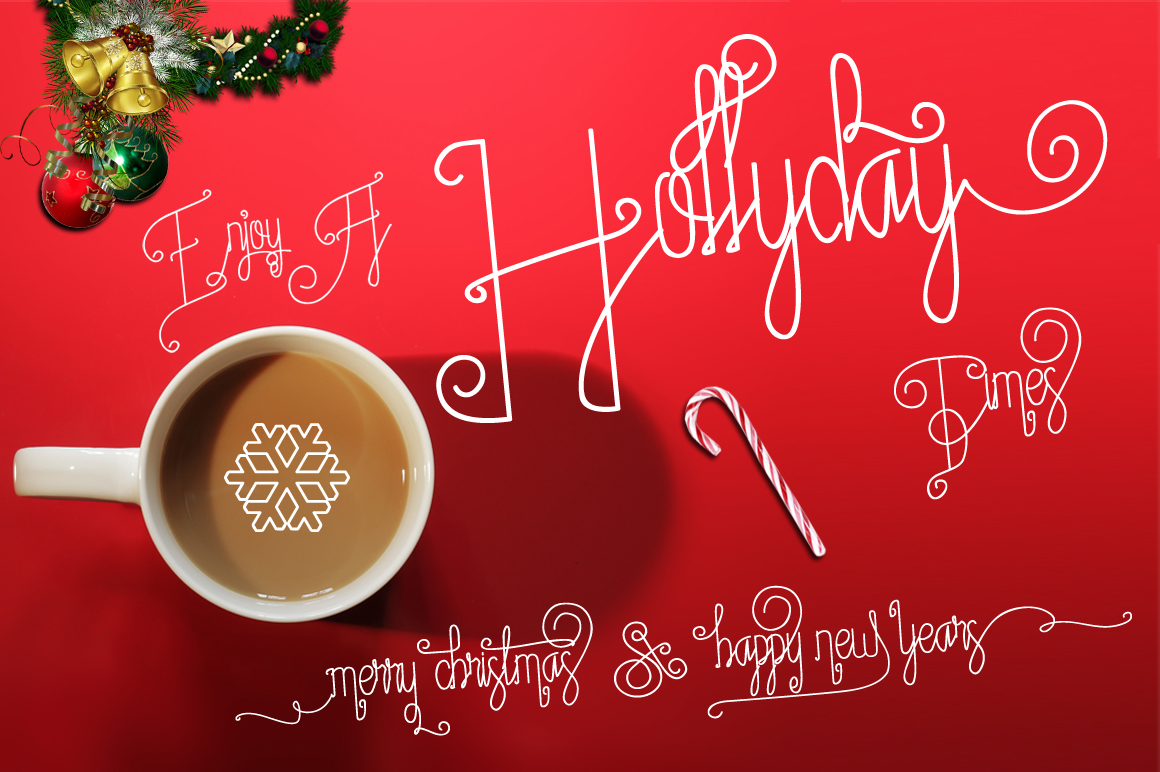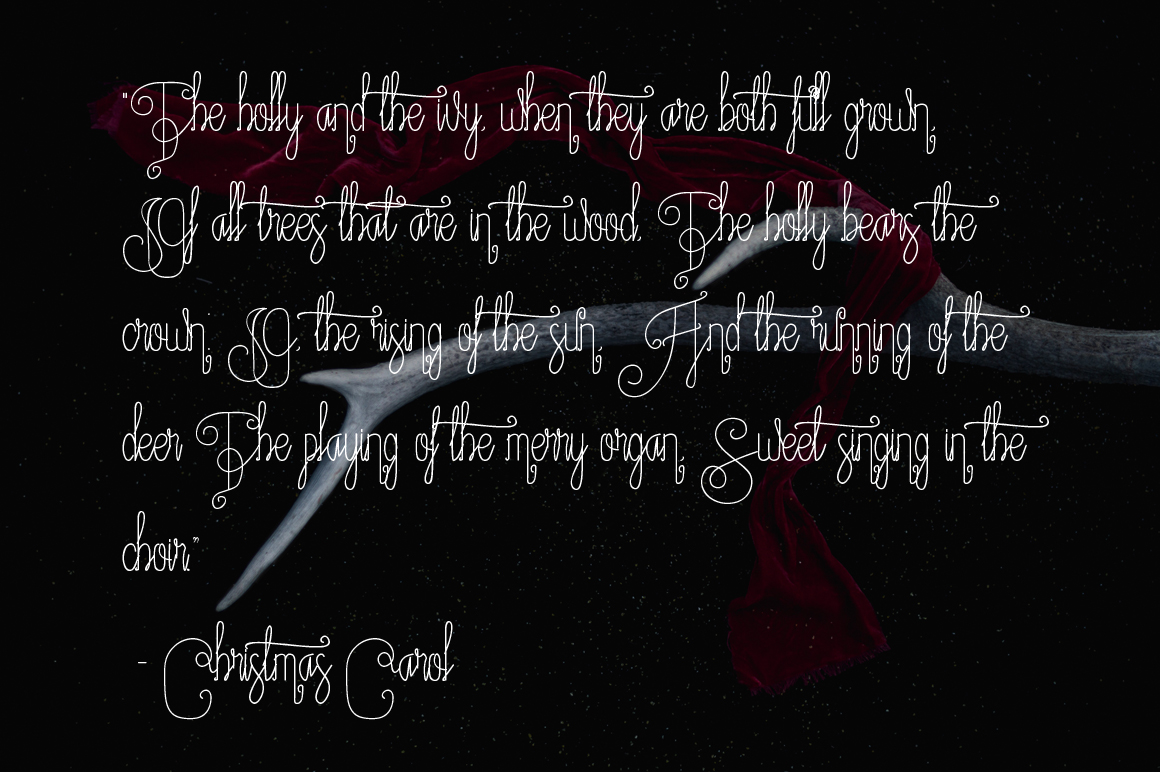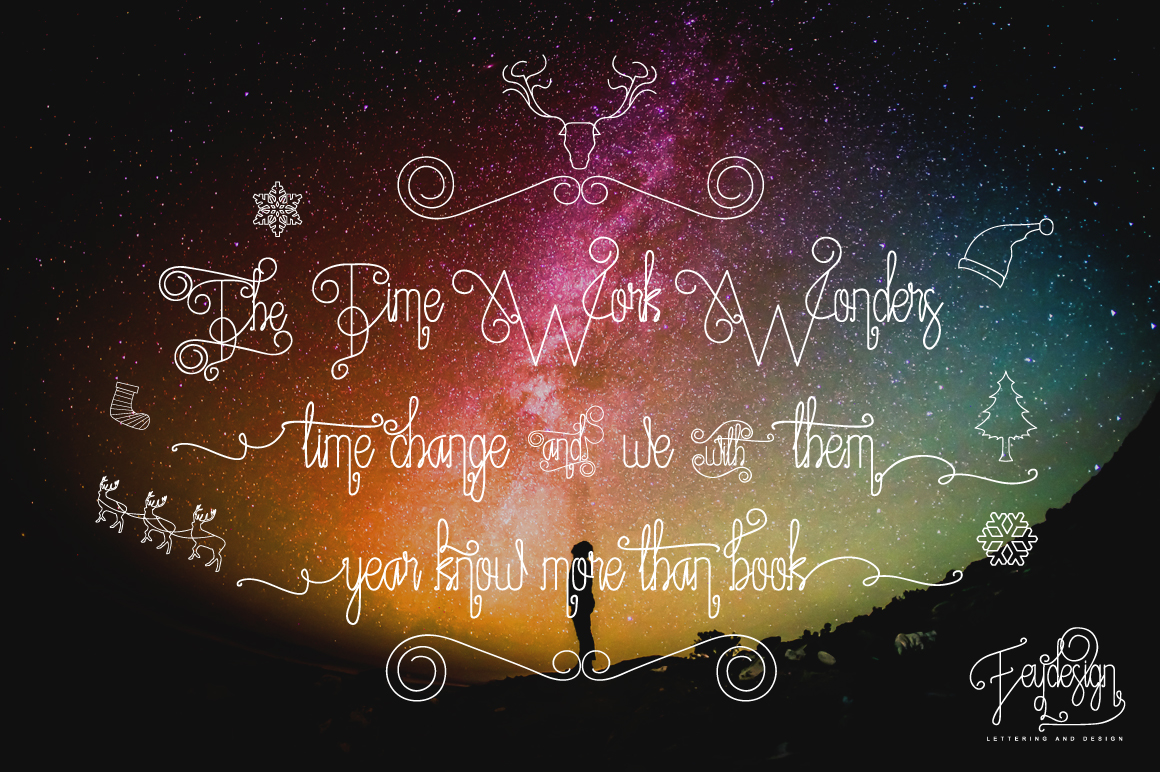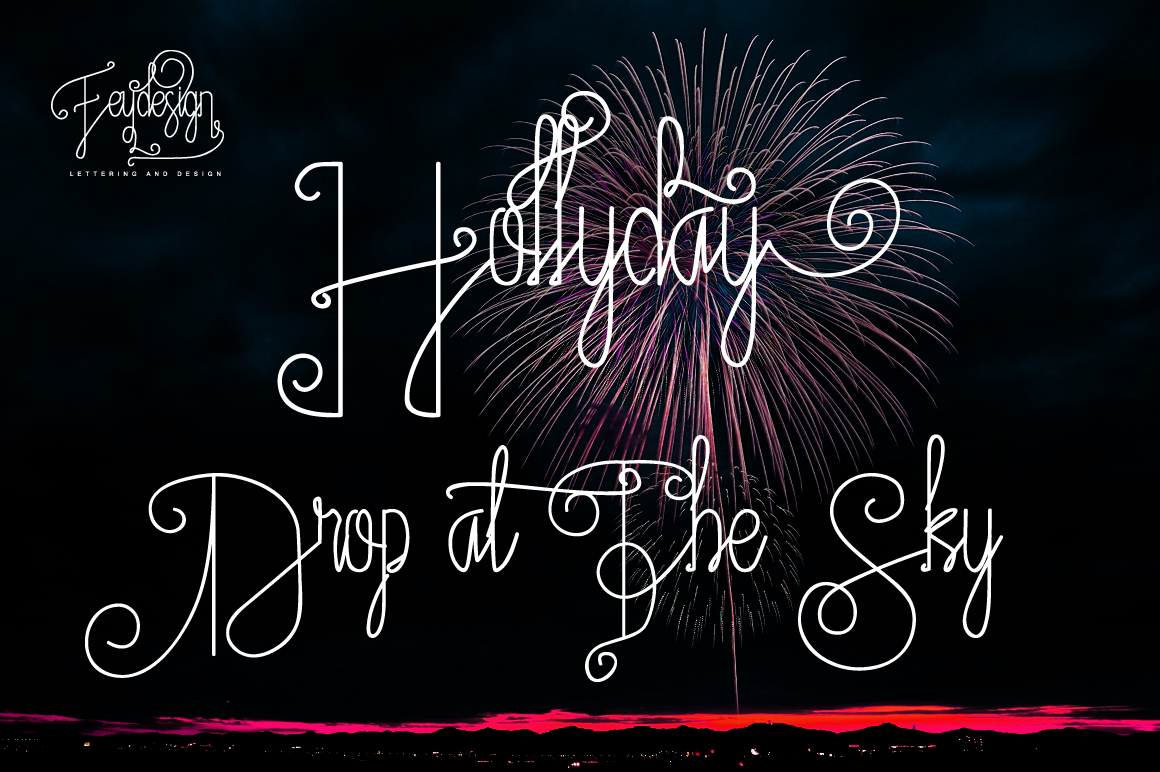
Fantasia Font
About Fantasia Font
Fantasia is a stunning monoline font, decorative and classy that can be used for a wide range of designs. This font has a festive appeal, yet can be used for a wide range of projects and designs. This is an extremely embellished font, and comes with tons of decorative embellishments.